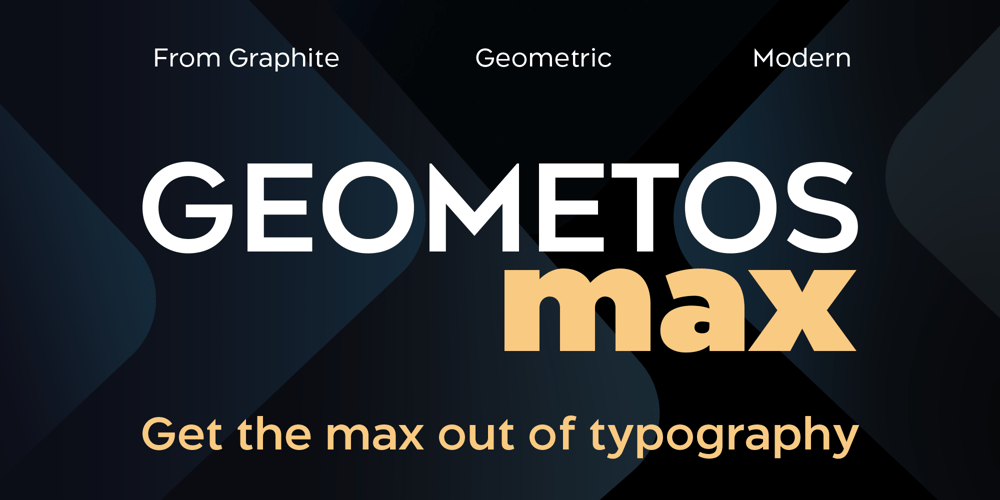
Geometos Max Font Family was designed by Deepak Dogra and published by Graphite. Geometos Max contains 7 styles and family package options. Geometos Max is an updated version of the very popular Geometos Neue font family. While Geometos Neue is an all caps typeface, Geometos Max has both upper and lower case letters.It is a geometric sans-serif typeface which comes in seven weights and has a clean, sharp and emphatic form, which helps it to impart a distinct impactful look to any communication it is used in.It is well suited for both text and display uses and especially suitable for branding, editorial, advertising, packaging, titles, posters, logos and much more.